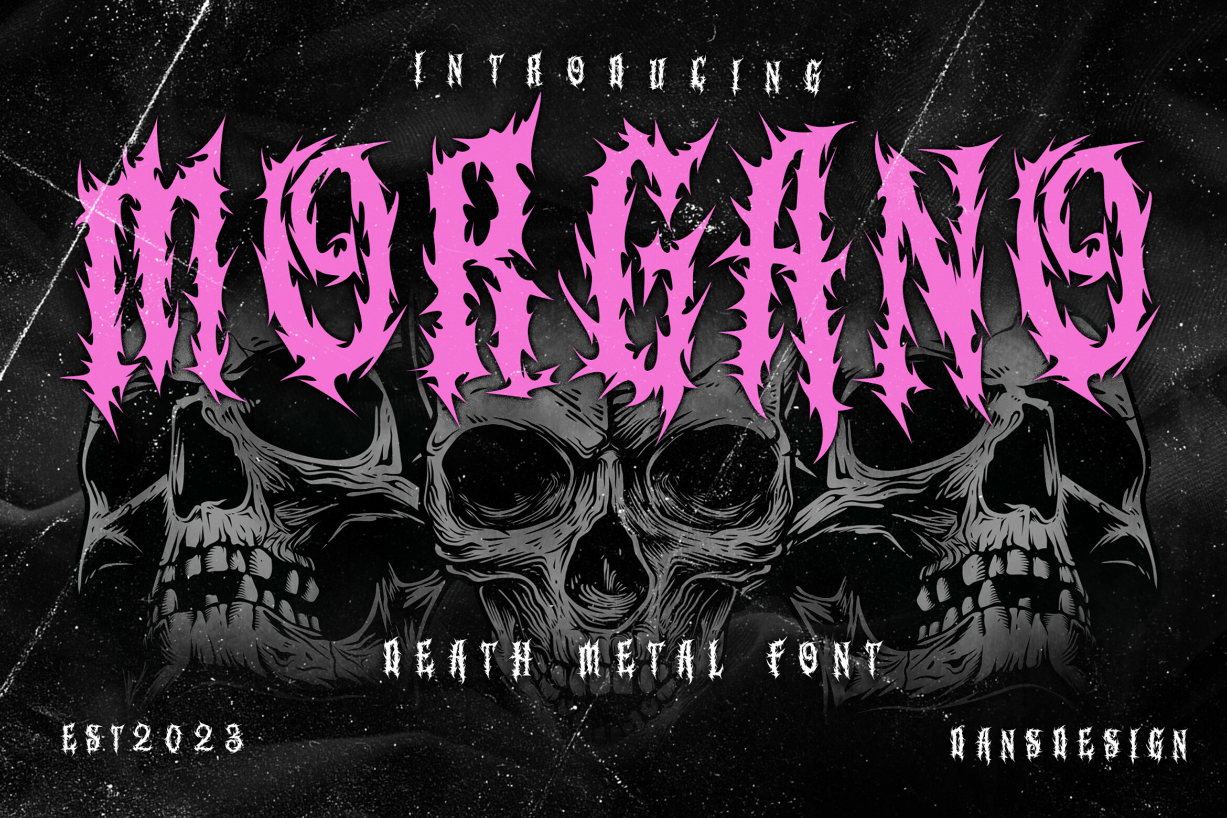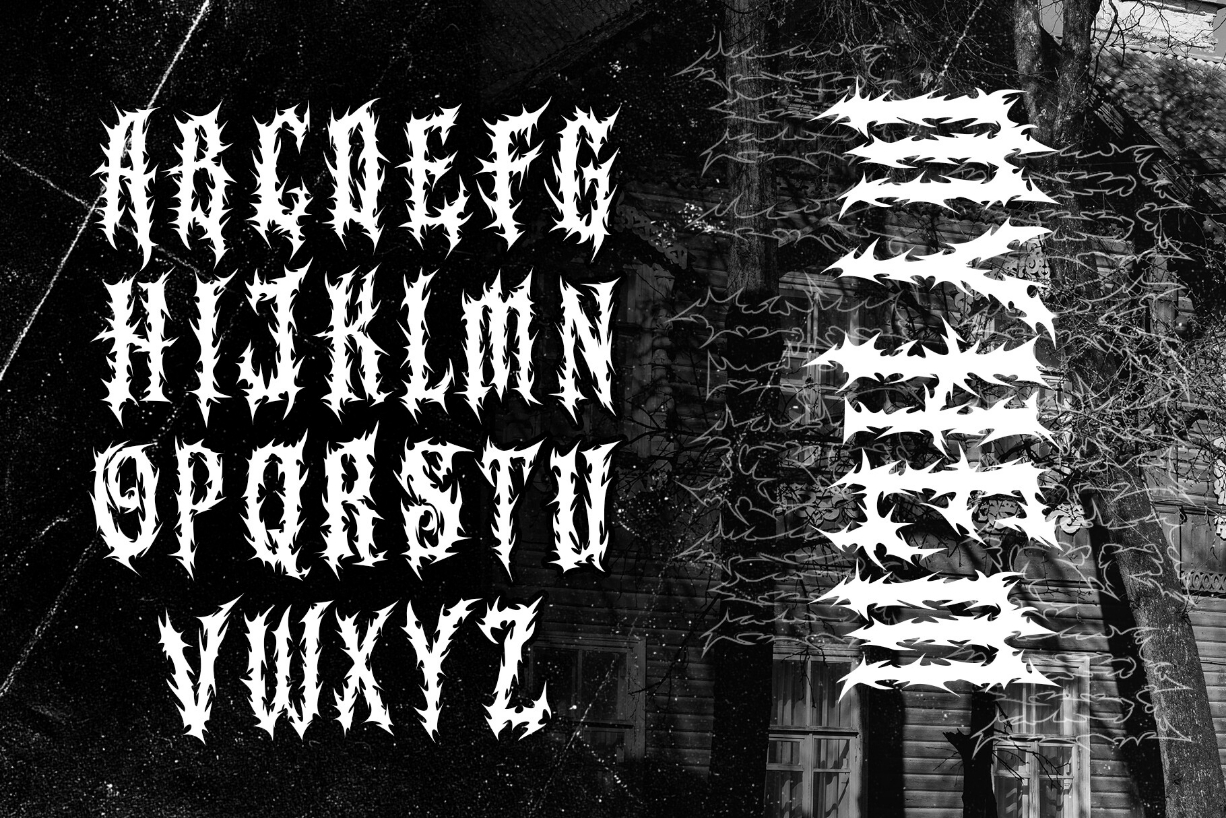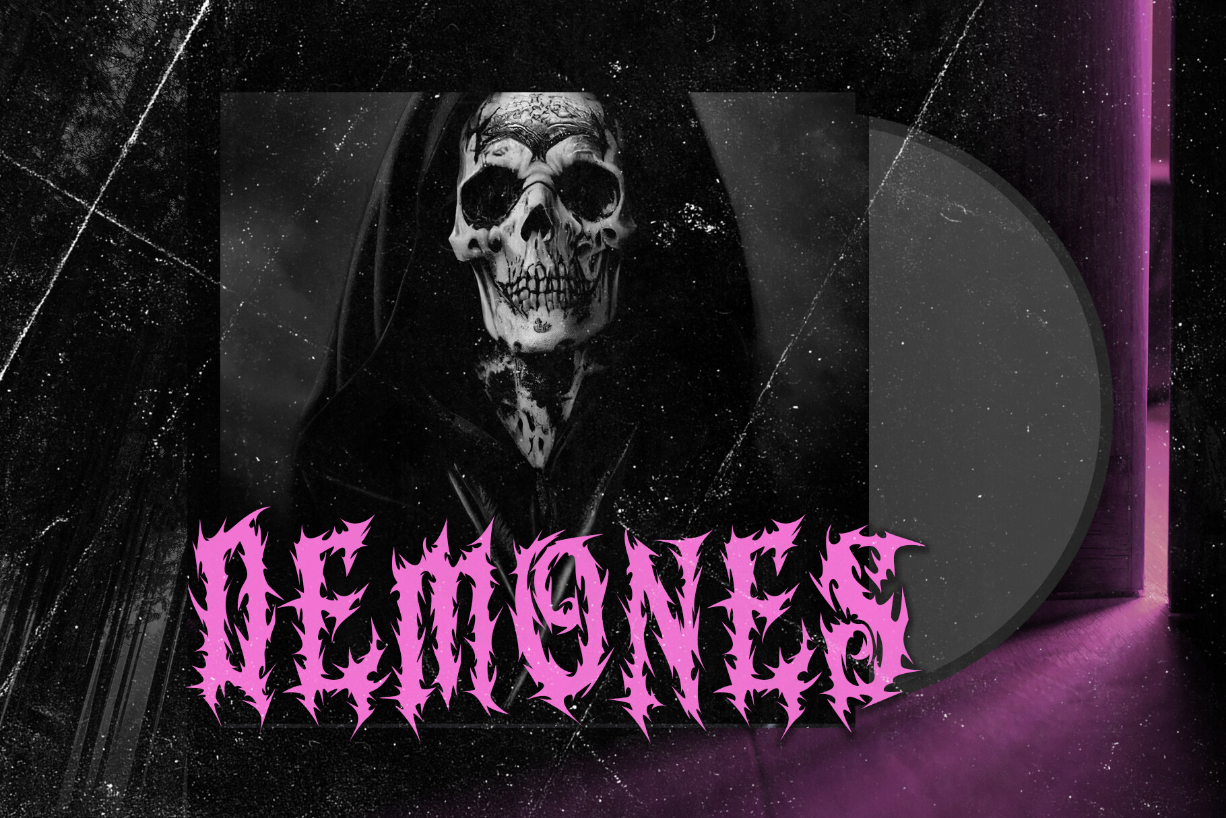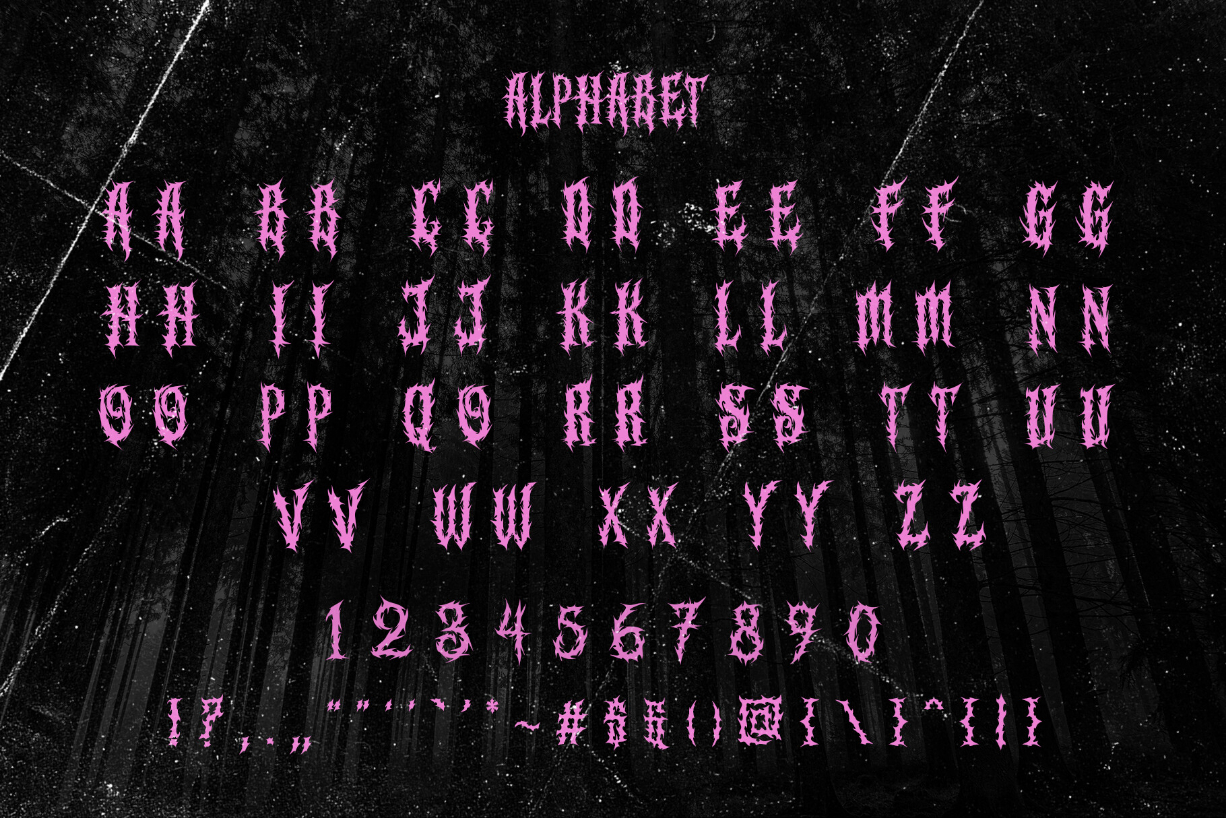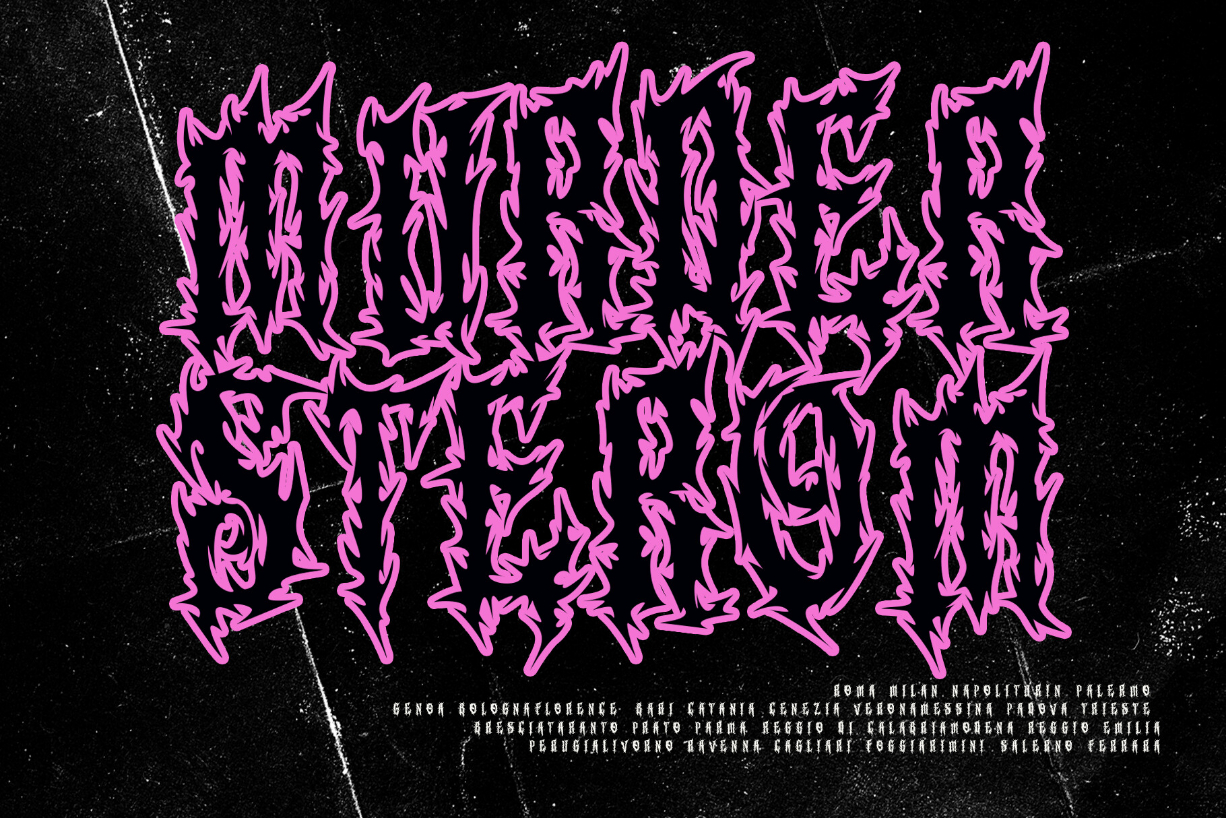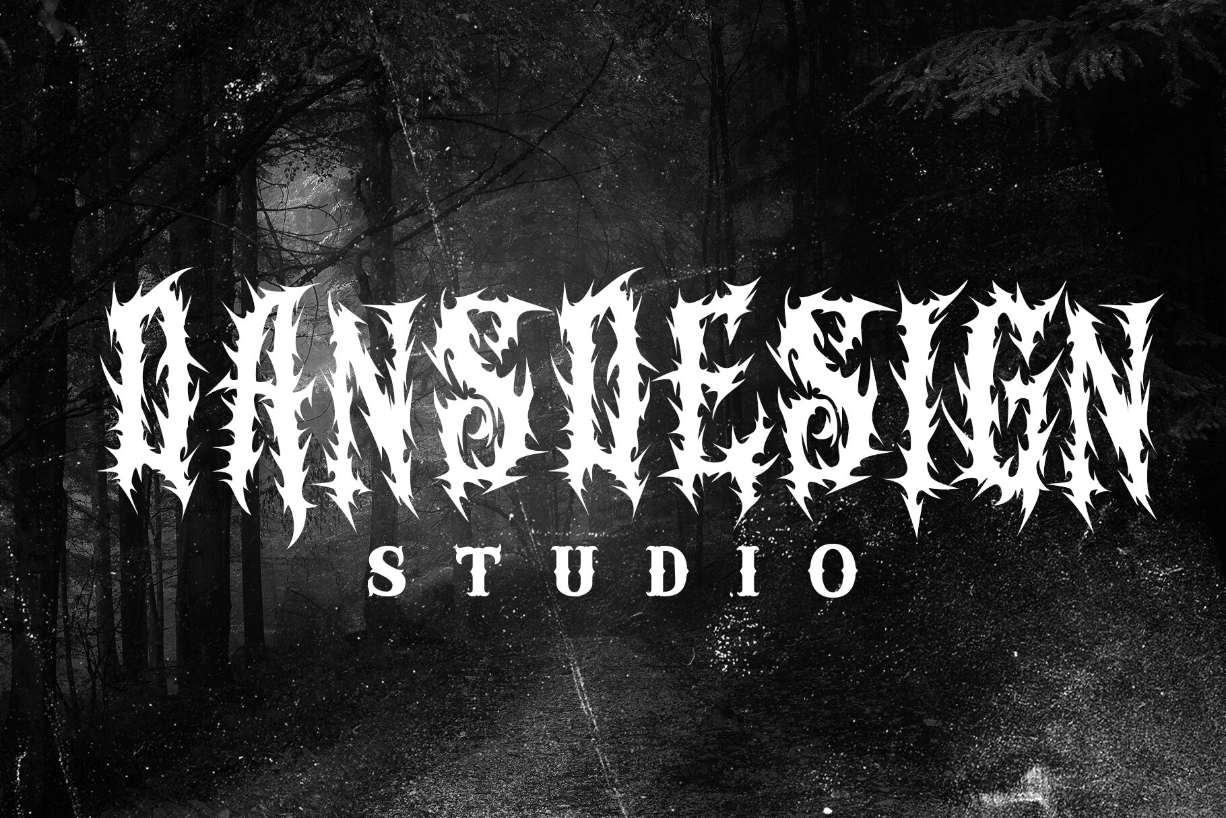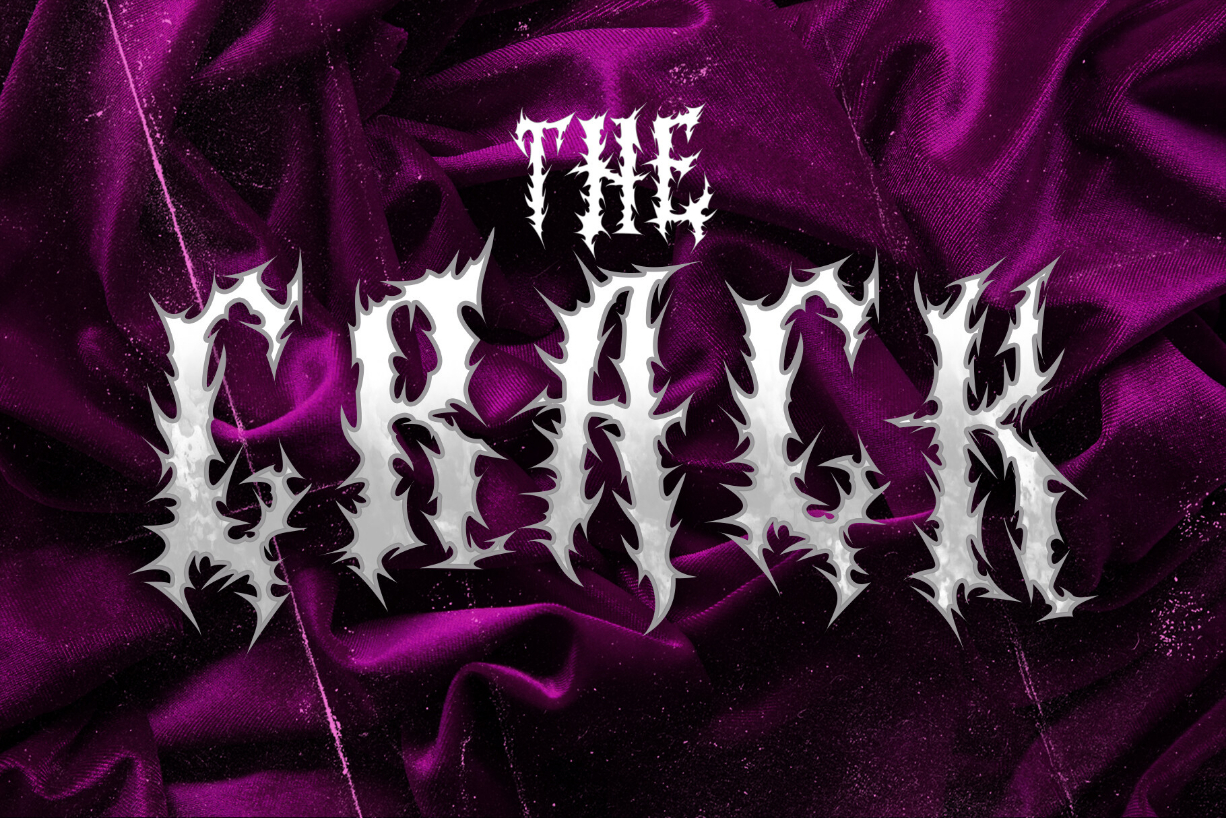
Morgano Font
About Morgano Font
Morgano is a modern, distinct and highly detailed blackletter Metal Horror font. It would be a great choice for music albums, posters, retro-urban designs, tattoo business branding, logos, vintage designs, and more.